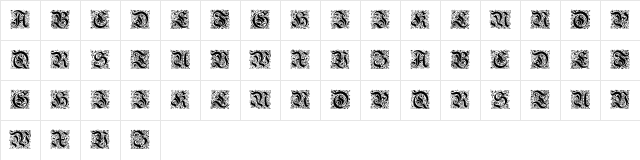
Kanzlei-Initialen Regular
Designer: Dieter Steffmann
Design Context for Kanzlei-Initialen
Kanzlei-Initialen is a composed and adaptable typeface that performs quietly and consistently across a wide range of design contexts.